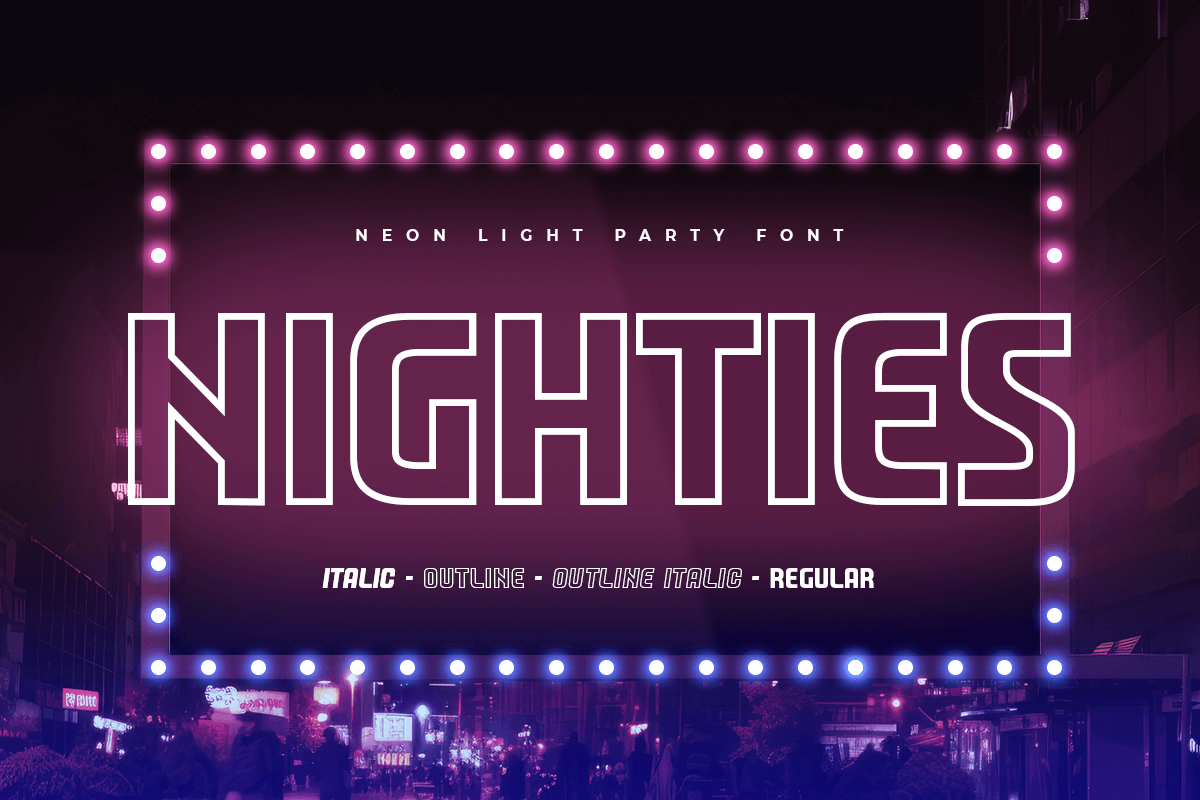
NIGHTIES
-Neon Light Party Font
nighties italic
NIGHTIES
nighties
NIGHTIES
nighties outline
NIGHTIES
nighties outline italic
NIGHTIES
NIGHTIES is Neon Light Party Font with Modern shape make your design look unique and stylish
A new Display Font that we created special for Headline, Title and more stand out typography needs, with extra ligature that will add your variations. It’s so perfect to add your style and headline overview. And specially for this font, we crafted for unique style and modern feels so enjoy to create any project that will show your main idea out.